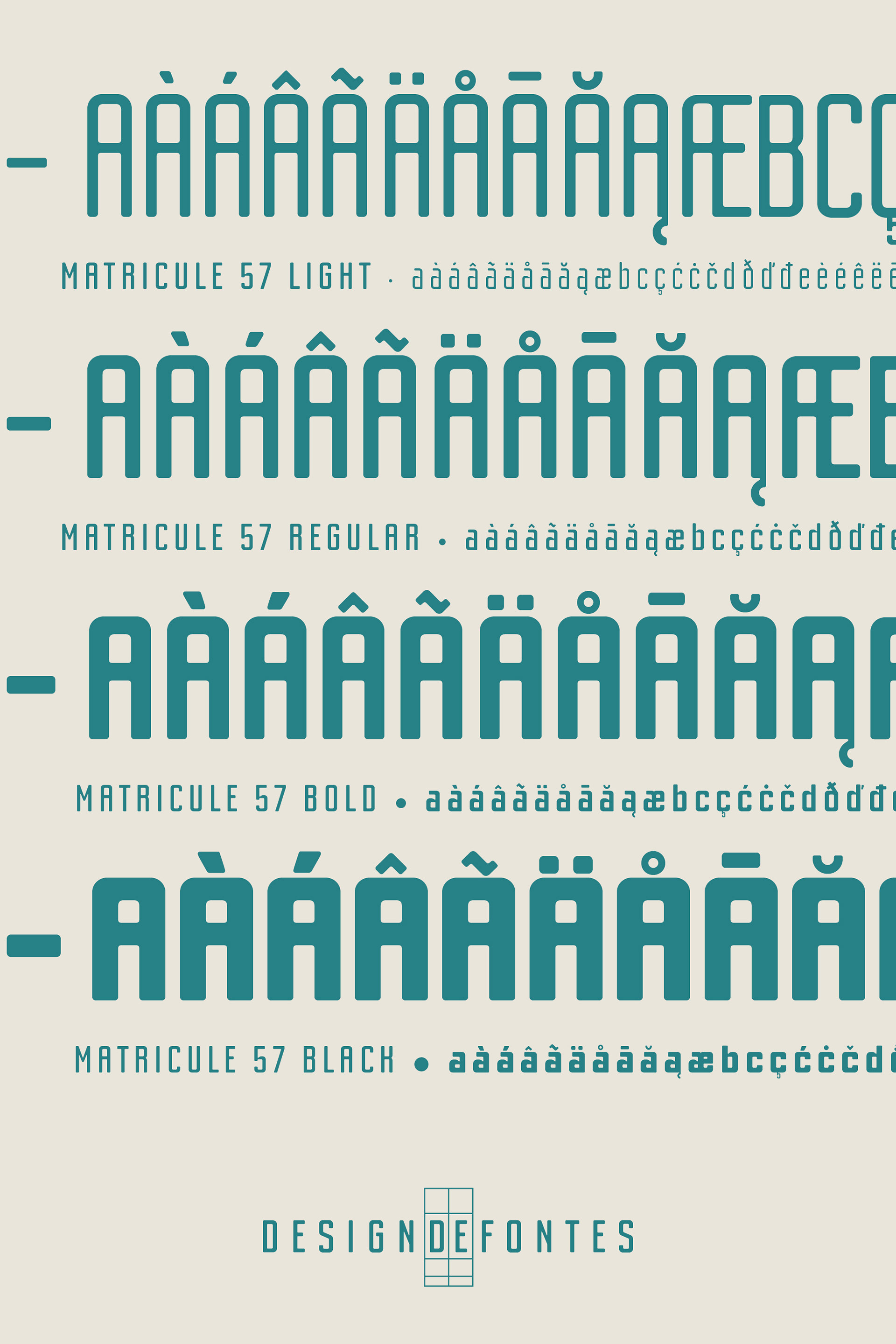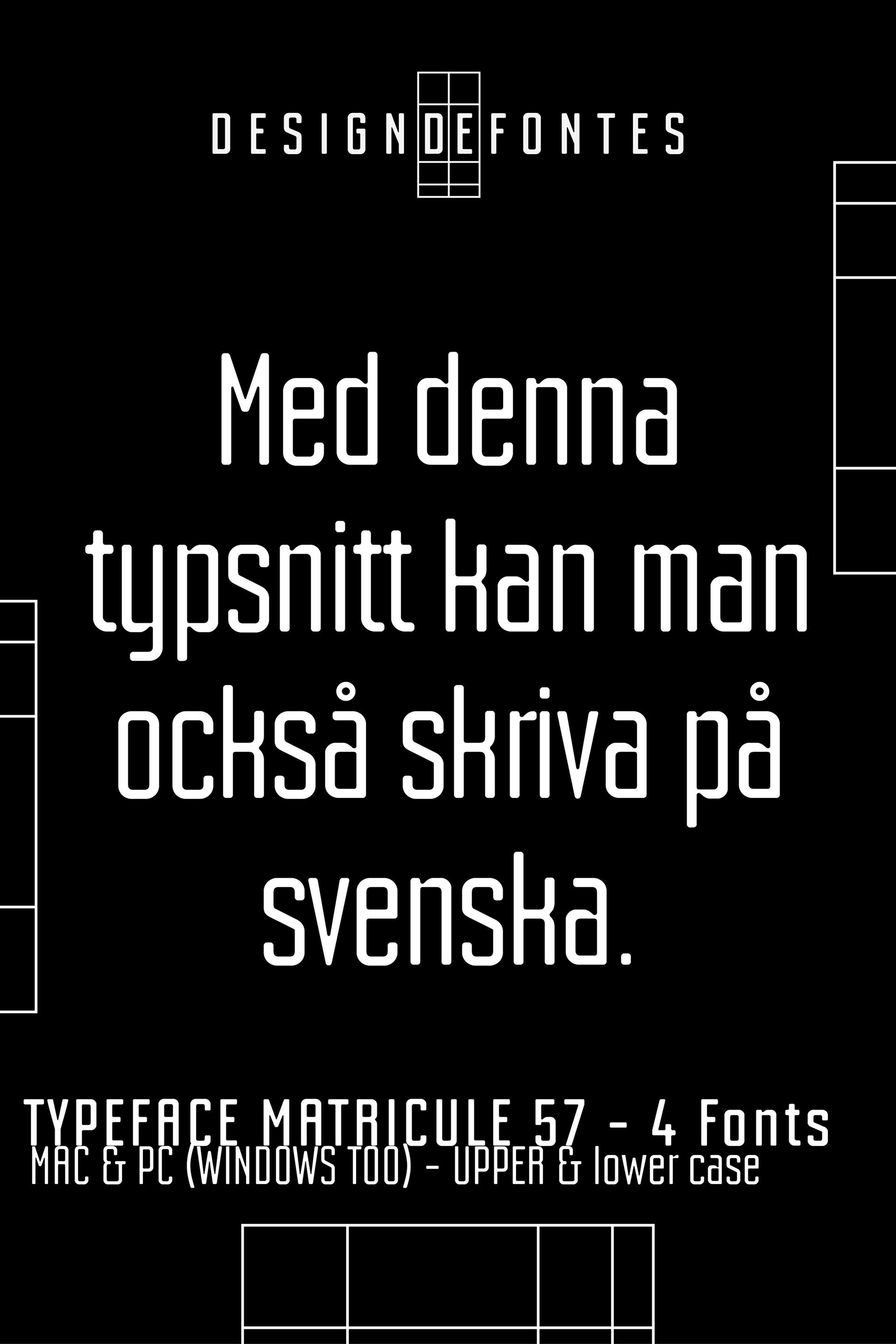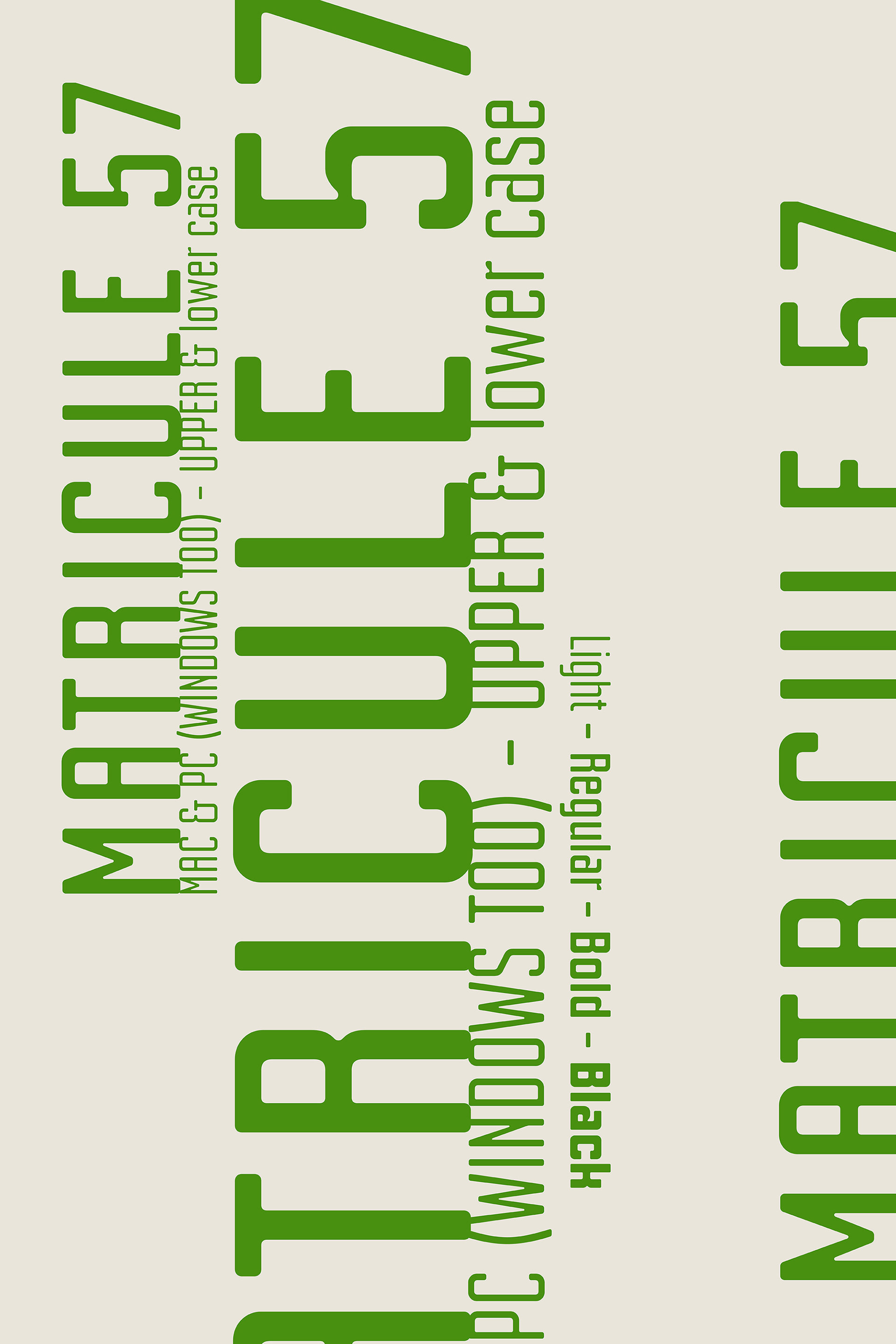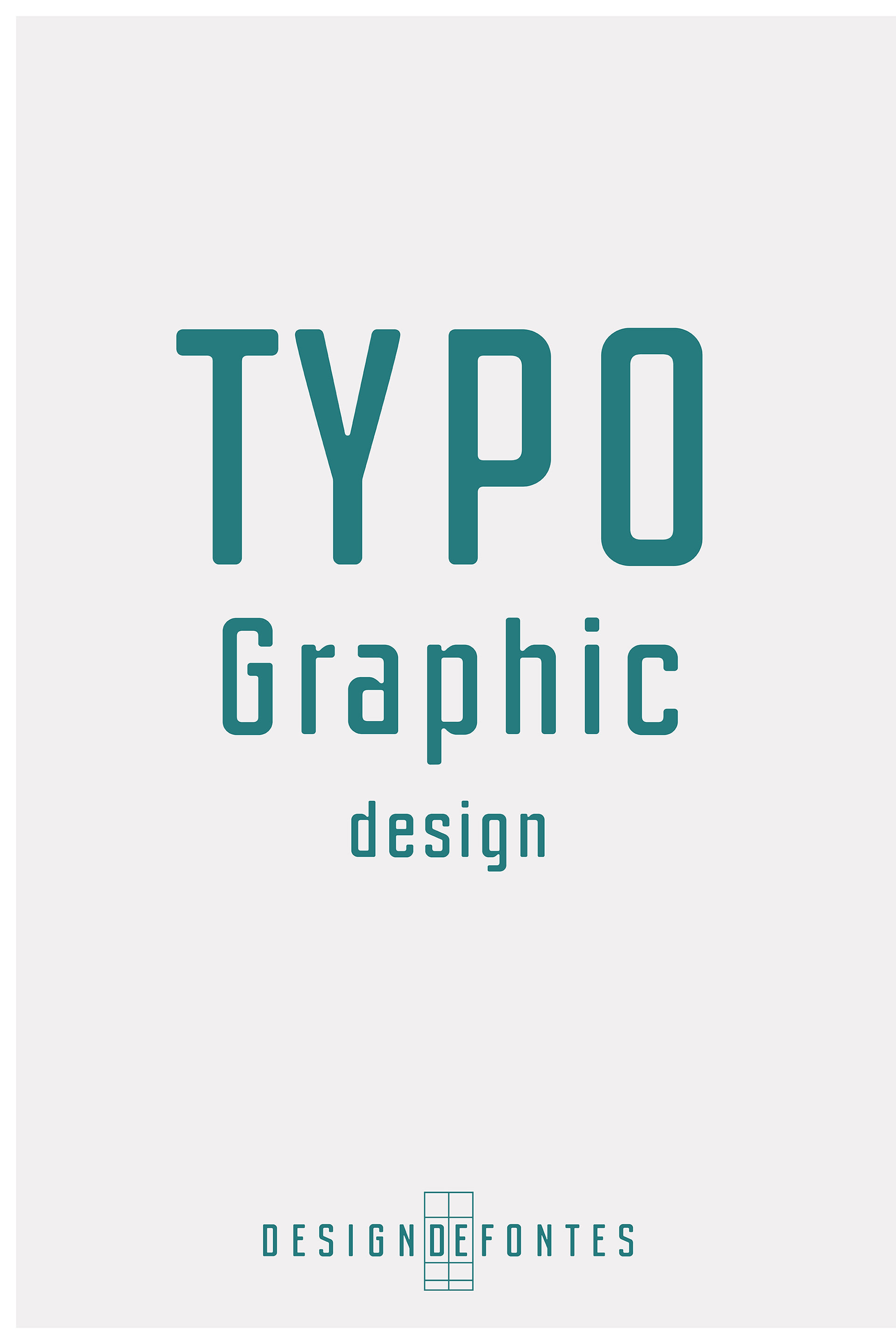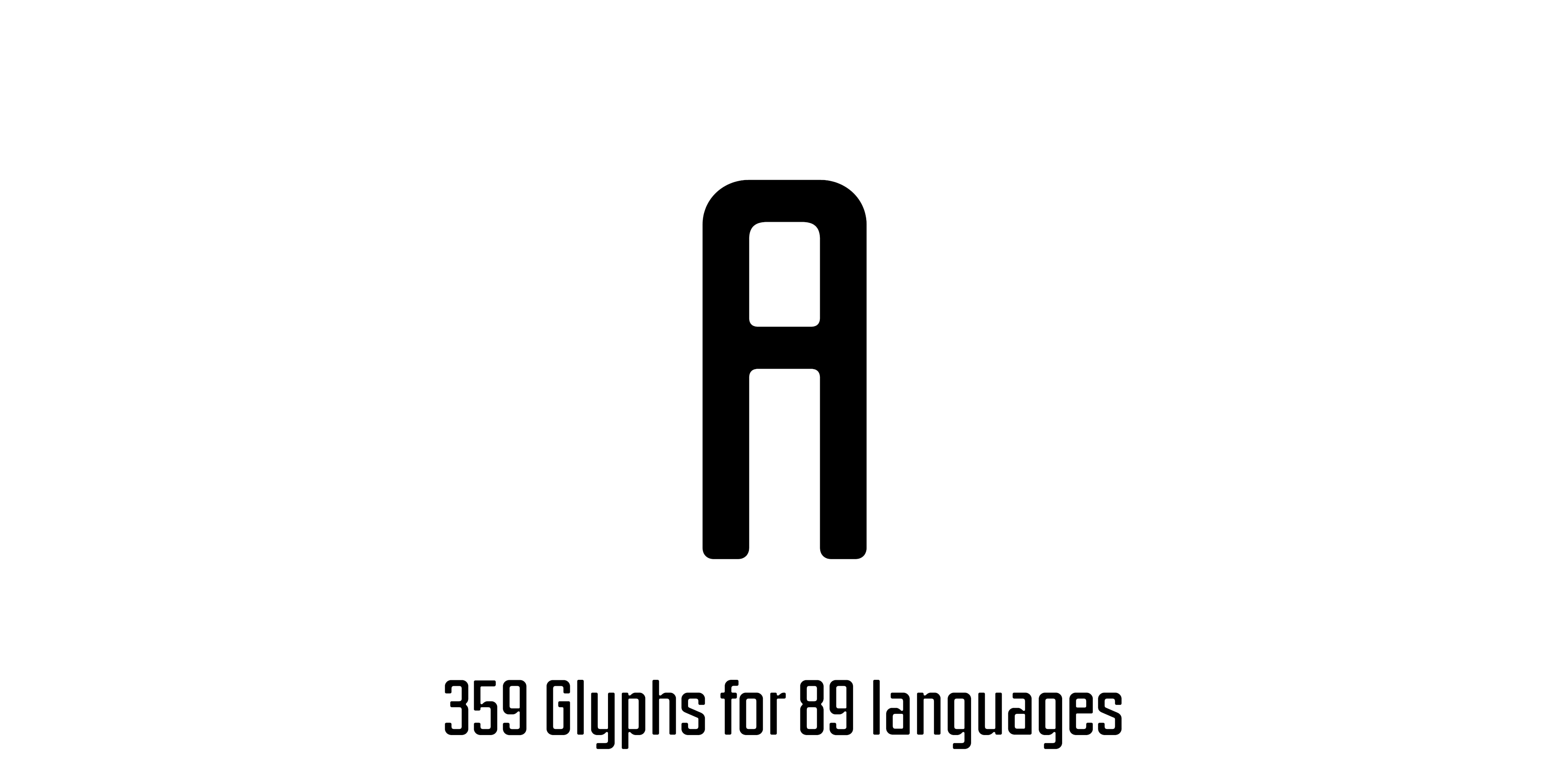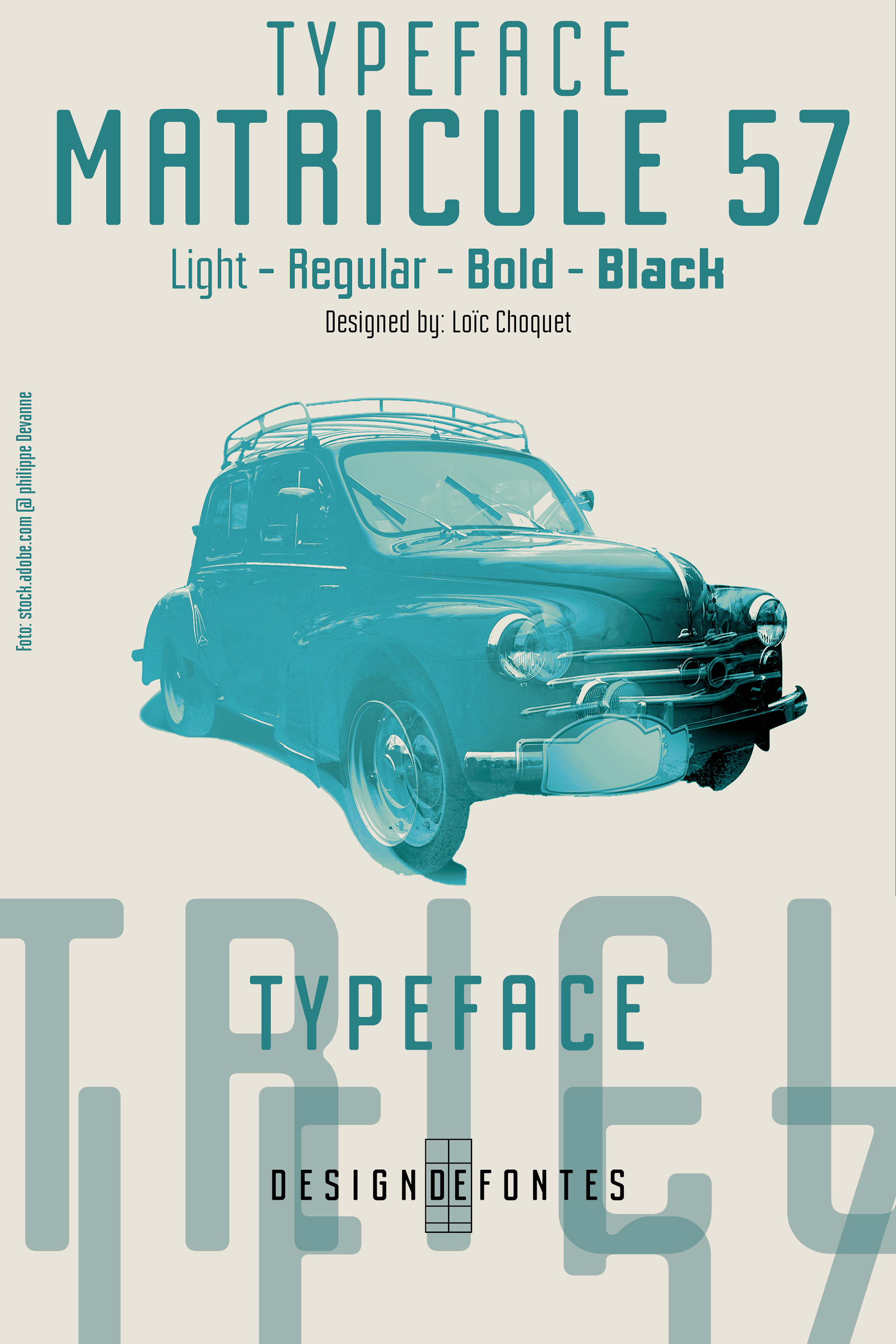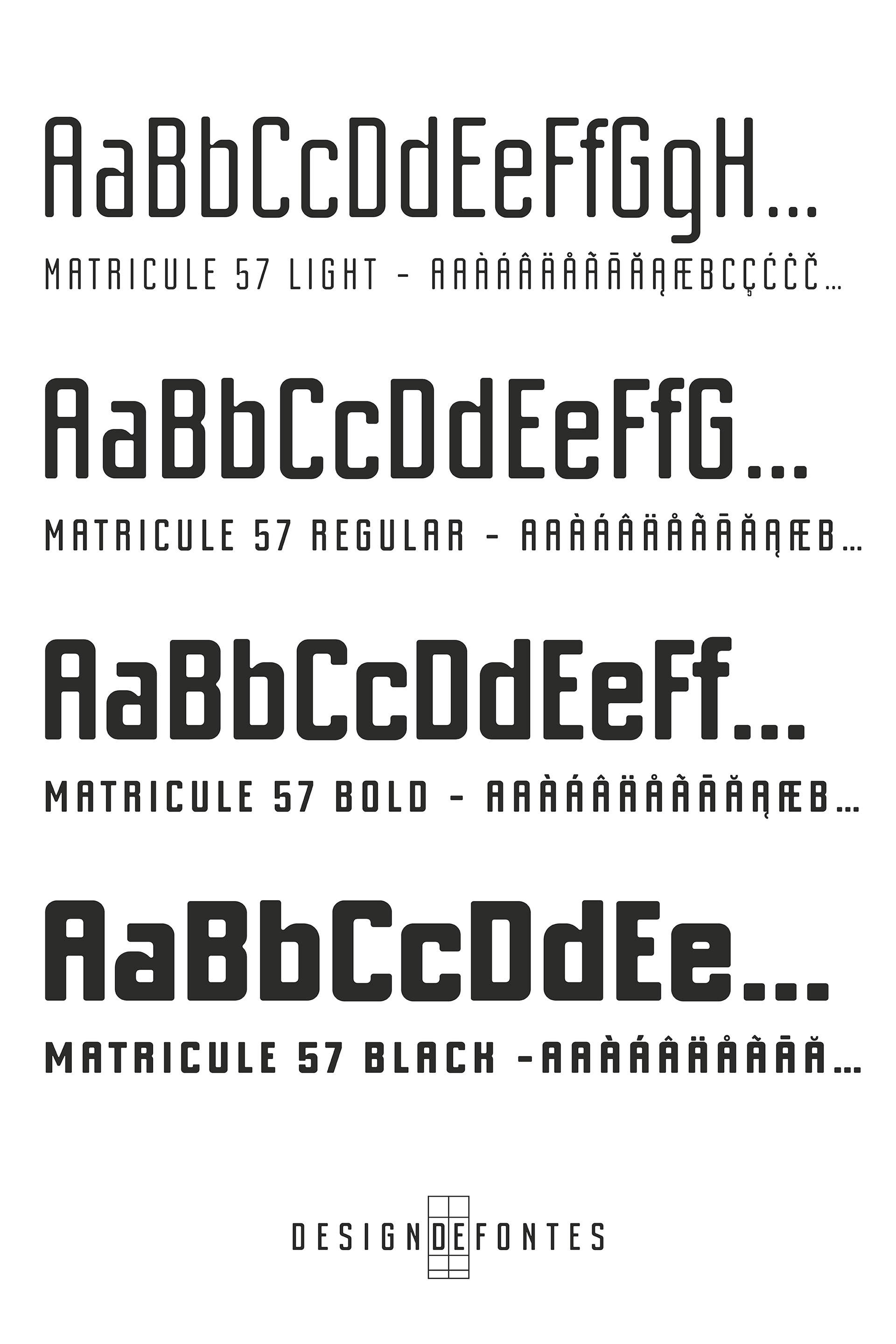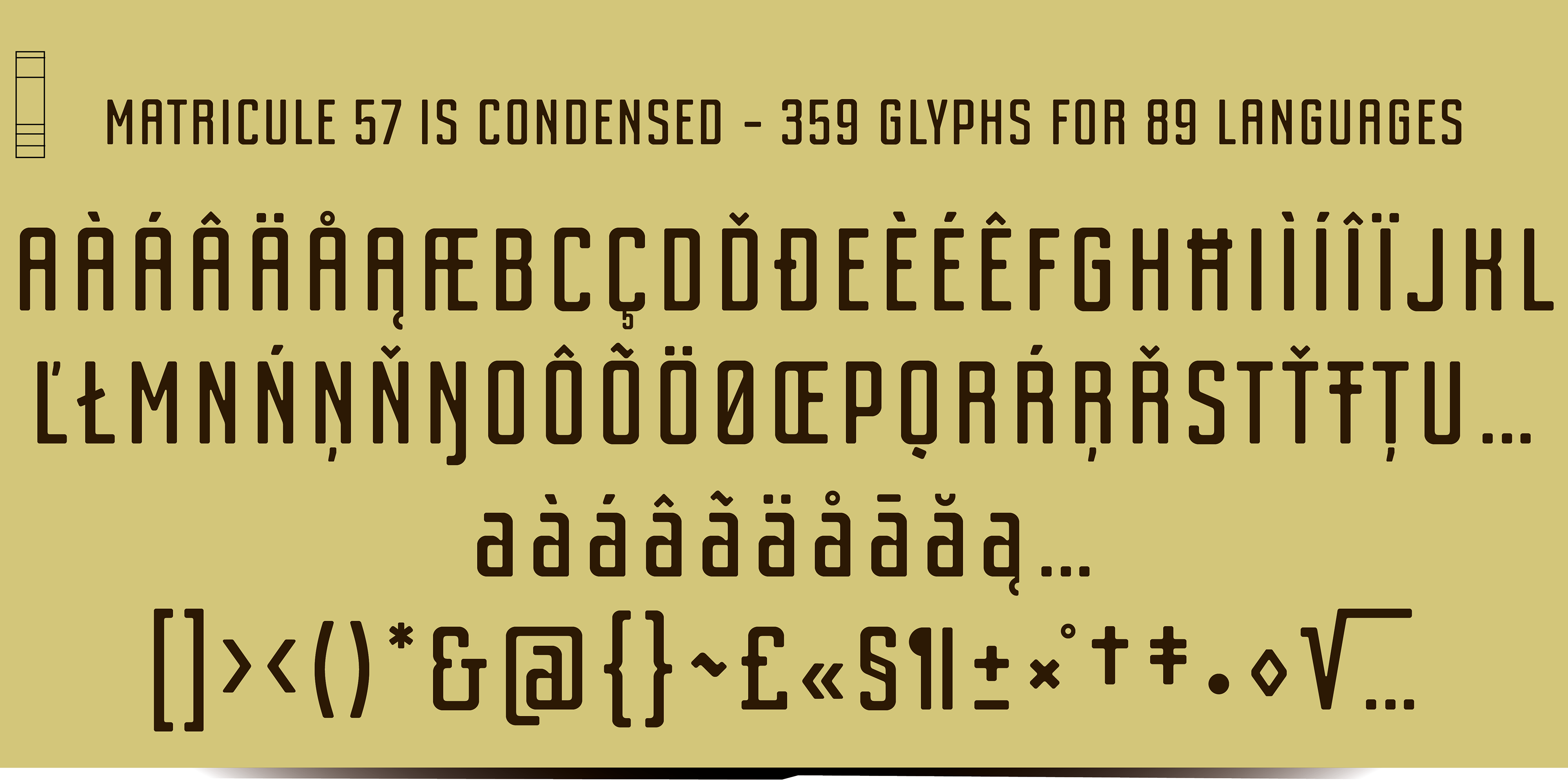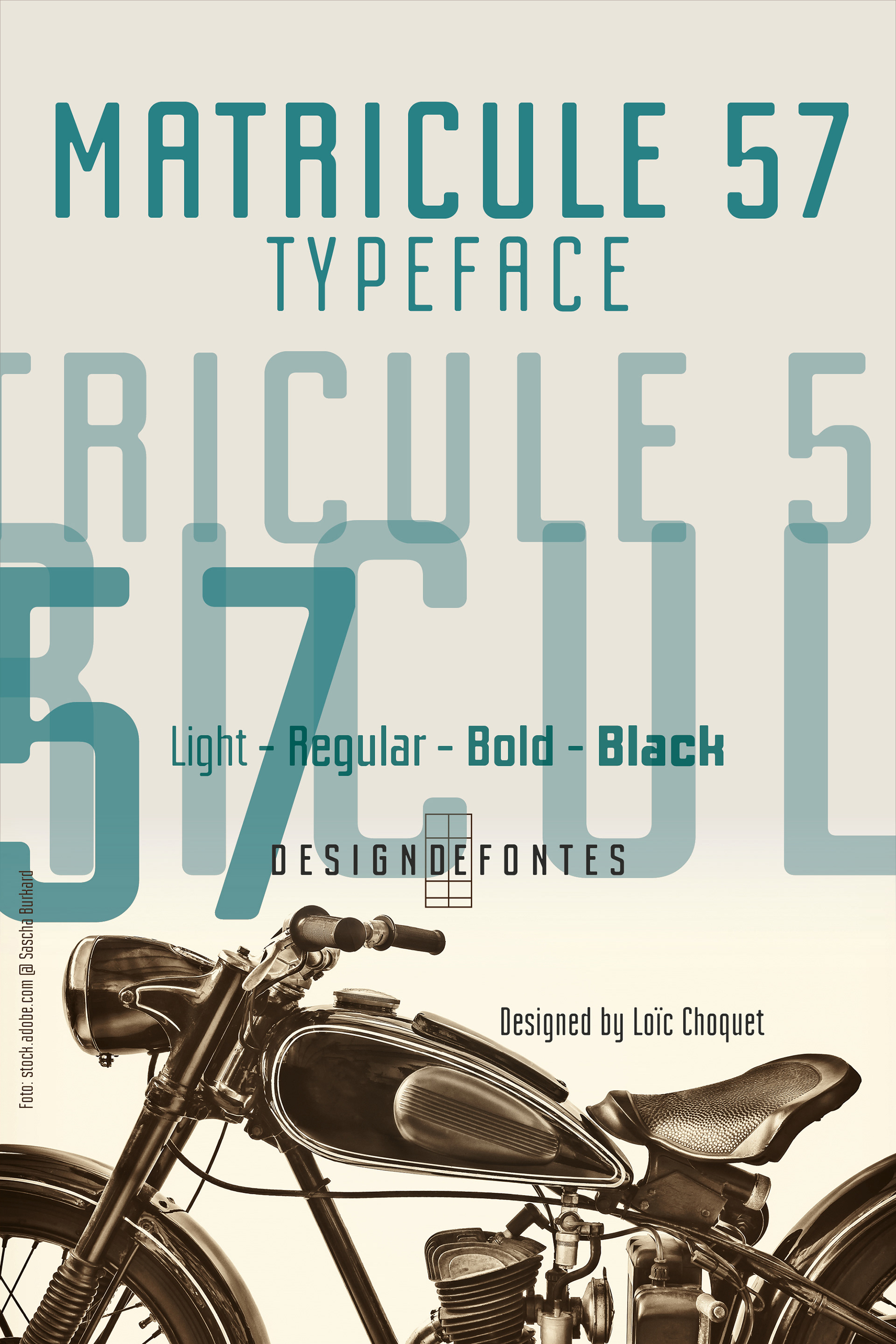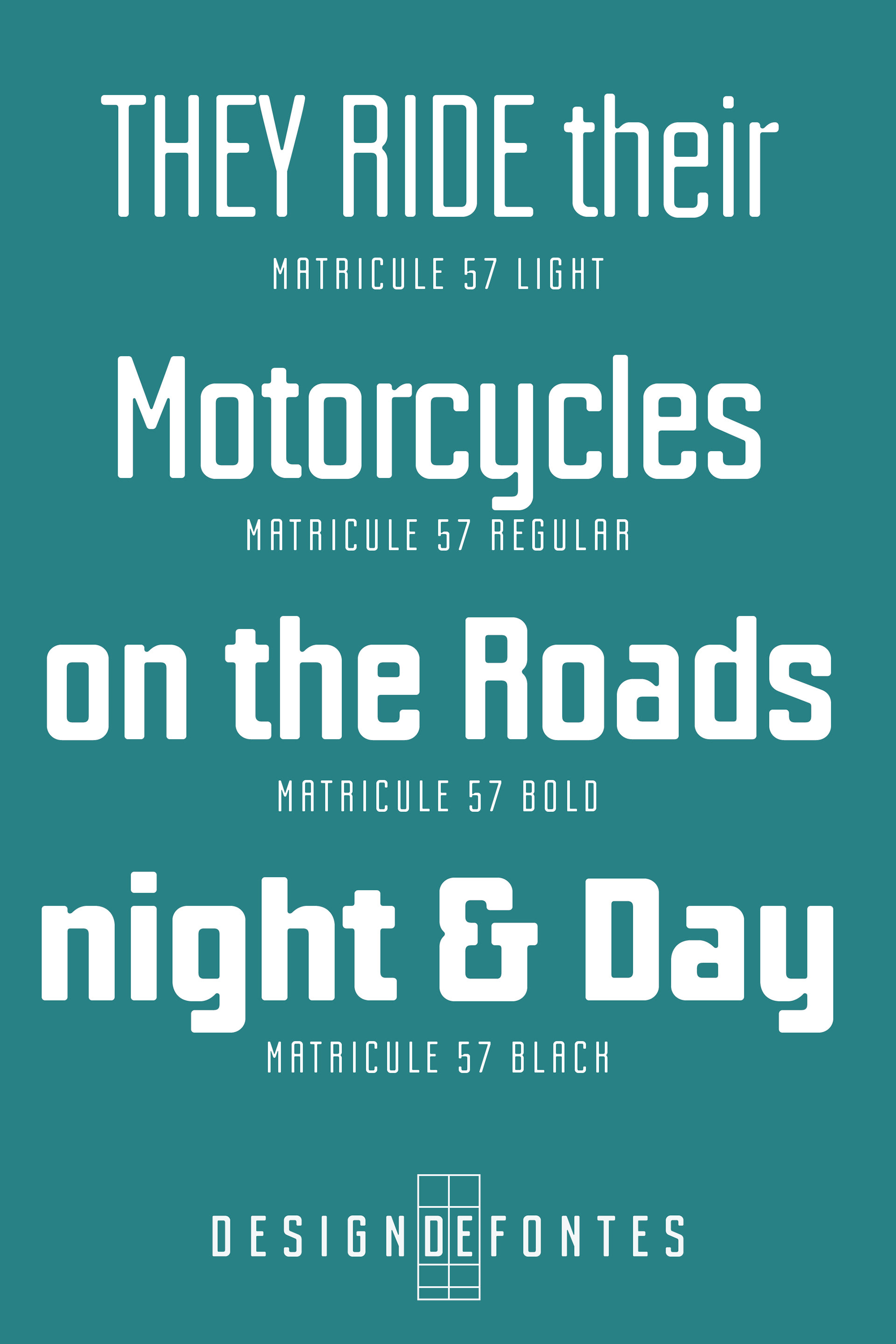
4 fonts ready to use for 89 languages
4 fontes (styles) prêtes à l’emploi pour au moins 89 langues différentes
Matricule 57
Matricule 57 is a sans serif font - designed by Loïc Choquet
Matricule 57 is the Condensed version of Matricule, a Typeface designed by Loïc Choquet. It consists of 4 fonts: Light, regular, bold and black. For Mac or PC (and Windows too).Well-suited for edition, logotypes, posters, etc. Each font contains 359 glyphs and supports up to 89 different languages.
Matricule 57 est la version condensée de Matricule, un caractère dessiné par Loïc Choquet. Matricule 57 est composé de 4 fontes : light, regular, bold et black. Ces quatre fontes fonctionnent sur Mac et sur PC (et même sous Windows). Ce caractère est adapté pour des travaux d’édition, création de logotypes, d'affiches… Chaque fonte contient 359 glyphes permettant ainsi l’emploi de ce caractère dans au moins 89 langues différentes.
Matricule 57 is a typeface whose design is inspired by license plates and by the deformations due to the stamping in the metal plates. These deformations give a very specific style, especially concerning the hairlines.
Matricule 57 est un caractère dont le design est inspiré par les plaques d’immatriculations et plus particulièrement par les déformations provoquées par la pression des caractères dans les plaques métalliques. Ces déformations donnent aux caractères un style spécifique notamment concernant les déliés de liaisons de ces caractères.
Typeface Matricule 57
Matricule 57 is ready to use for 89 languages
Afrikaans, Albanian, German, English, Assou, Low German, Lower Sorbian, Basque, Bemba, Béna, Bosnian, Cape Verdean, Catalan, Chambala, Cisena, Cornish, Mauritian Creole, Croatian, Danish, Diola-Fogny, Spanish, Estonian , Faroese, Filipino, Finnish, French, Ripuarian Frankish, Friulian, West Frisian, Scottish Gaelic, Galician, Welsh, Ganda, Gusii, Upper Sorbian, Hungarian, Indonesian, Irish, Icelandic, Italian, Kalendjin, Kiga, Latvian, Lithuanian, Luhya, Luo, Luxembourgish, Makhuwa-Meetto, Makonde, Malay, Malagasy, Maltese, Manx, Matchame, Northern Ndebele, Dutch, Norwegian Bokmål, Norwegian Nynorsk, Nyankolé, Oromo, Polish, Portuguese, Romansh, Rombo, Romanian, Roundi, Rwa, Rwanda, Samburu, Inari Sami, Northern Sami, Sangho, Sangu, Shona, Slovak, Slovenian, Soga, Somali, Swedish, Swiss German, Swahili, Taita, Czech, Teso, Turkish, Turkmen, Vunjo, Zulu.
Matricule 57 est prête à l’emploi pour 89 langues différentes
afrikaans, albanais, allemand, anglais, assou, bas-allemand, bas-sorabe, basque, bemba, béna, bosniaque, capverdien, catalan, chambala, cisena, cornique, créole mauricien, croate, danois, diola-fogny, espagnol, estonien, féroïen, filipino, finnois, français, francique ripuaire, frioulan, frison occidental, gaélique écossais, galicien, gallois, ganda, gusii, haut-sorabe, hongrois, indonésien, irlandais, islandais, italien, kalendjin, kiga, letton, lituanien, luhya, luo, luxembourgeois, makhuwa-meetto, makondé, malais, malgache, maltais, mannois, matchamé, ndébélé du Nord, néerlandais, norvégien bokmål, norvégien nynorsk, nyankolé, oromo, polonais, portugais, romanche, rombo, roumain, roundi, rwa, rwanda, sambourou, sami d’Inari, sami du Nord, sangho, sangu, shona, slovaque, slovène, soga, somali, suédois, suisse allemand, swahili, taita, tchèque, teso, turc, turkmène, vunjo, zoulou.